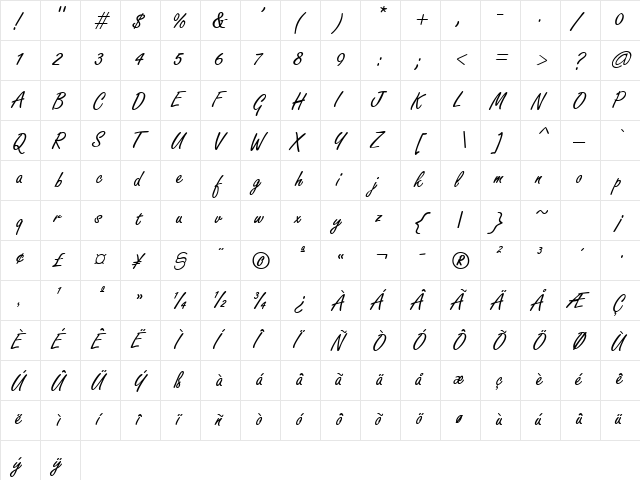
Playful Print Regular
Design Context for Playful Print Typeface
Playful Print trades formality for fun, with bouncy, characterful letterforms that bring warmth and energy to any project.
Font Pairing: Pairs well with a rounded or humanist sans for body copy, maintaining the friendly tone without relying on Playful Print to carry extended reading.
Pro Tip: Use Playful Print at larger display sizes where its expressive character can land. Pair with a clean, simple sans for body copy to maintain readability.